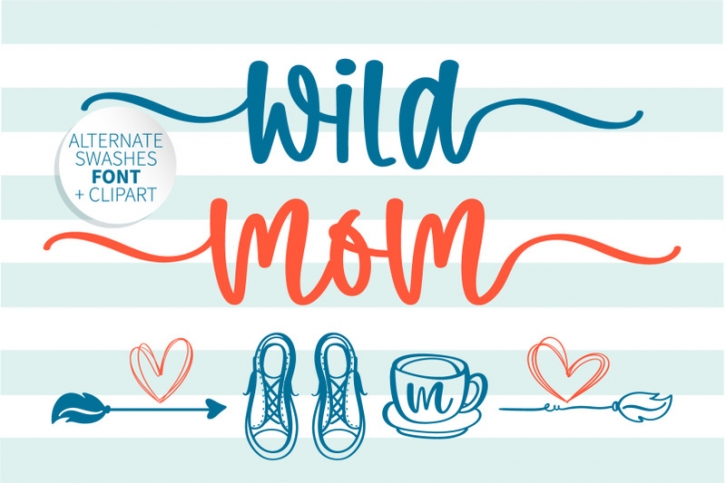
Wild Mom is stylish sans serif handwritten font with fun informal and perfect for any events.
Wild Mom is a sweet and beautiful handwritten font. It matches a large spectrum of creations, so use your imagination and create lovely designs with it!
· Standard glyphs, Basic Latin Unicode: standard English number and basic punctuation
· Alternate glyphs and Alternate swashes glyphs